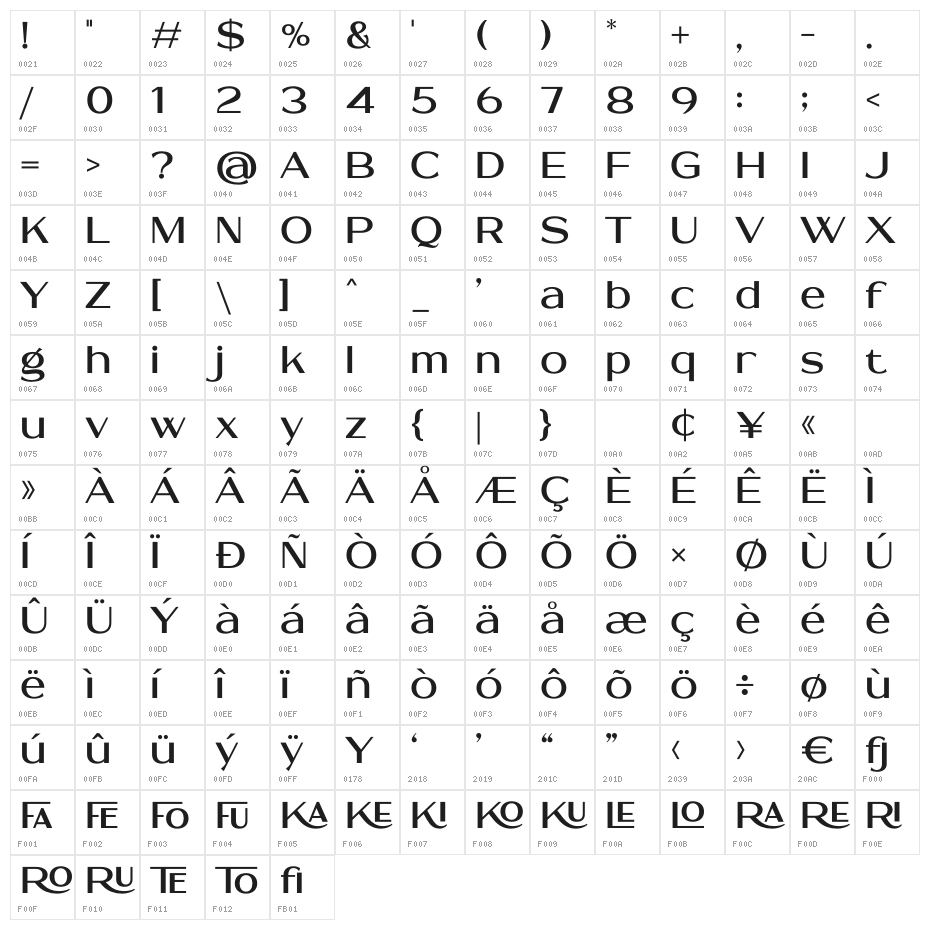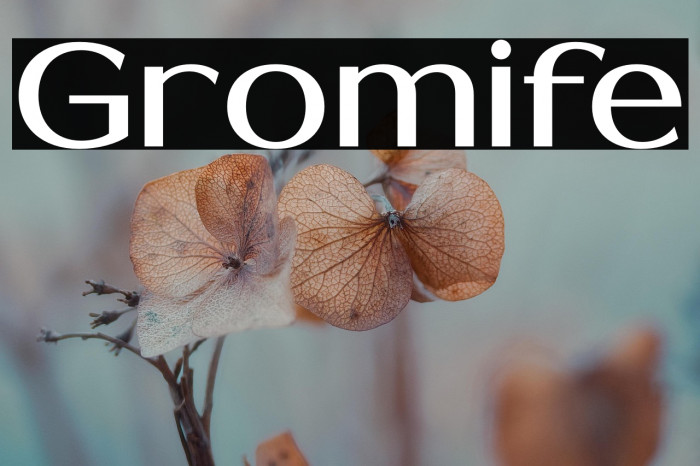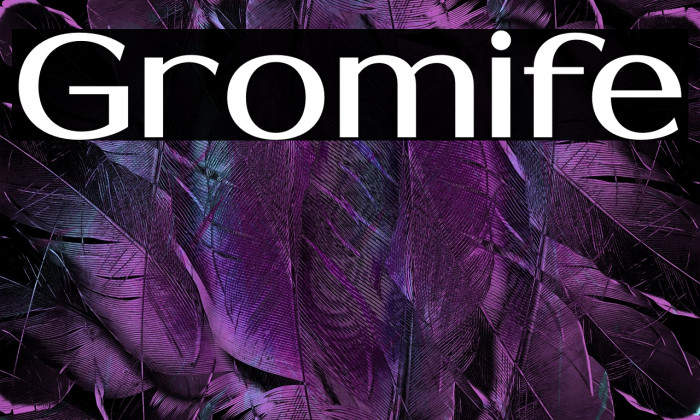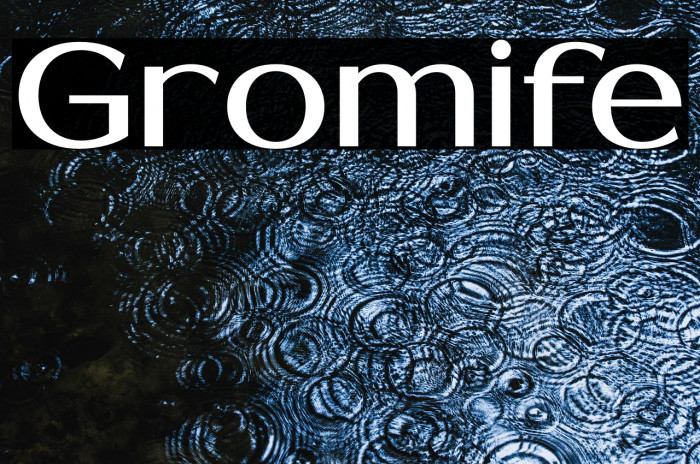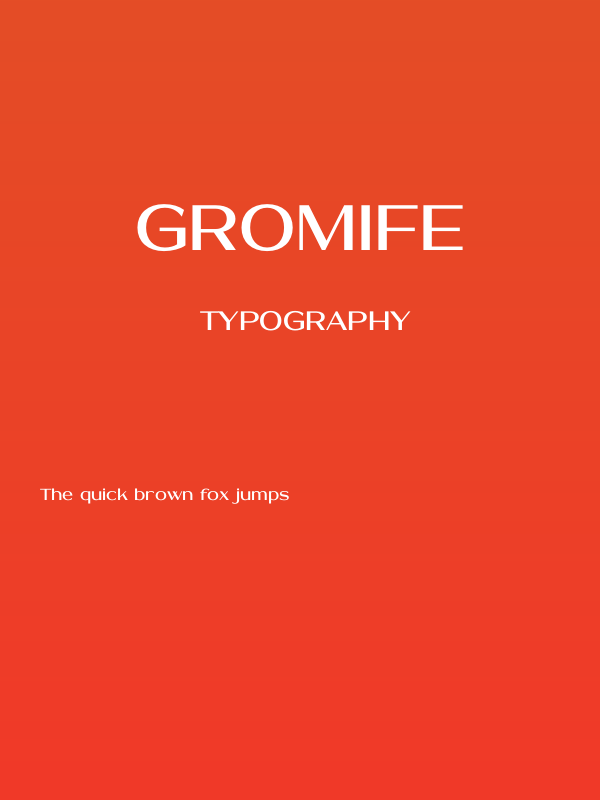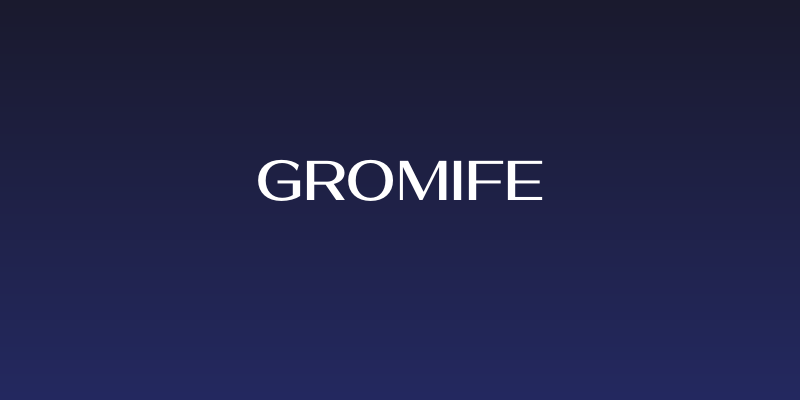
Gromife Font
Gromife Description
This font features a modern and clean design with a sans-serif style. The characters are well-proportioned, with a consistent stroke width that gives it a balanced and harmonious appearance. The uppercase letters are bold and commanding, while the lowercase letters maintain a smooth and approachable look. The numerals are clear and easily distinguishable, making them suitable for various applications. Special characters are included, providing versatility for different uses. The overall design is sleek and professional, making it ideal for contemporary projects.
| Proposed Projects | Ideal for branding, advertising, digital media, and corporate design projects. |